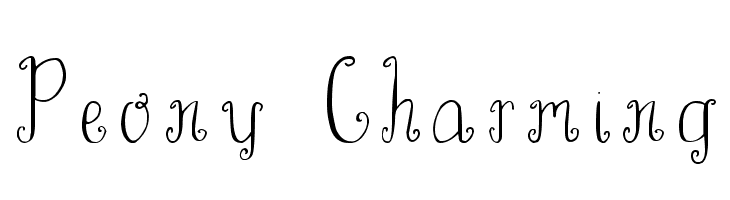
A bold, modern font with a strong, compact design.
A modern outline font with geometric and uniform letterforms.
A playful, hand-drawn font with dynamic strokes and whimsical details.
A graceful, cursive script font with elegant, flowing lines.
A playful, hand-drawn font with rounded edges and a whimsical style.
A scratchy, hand-drawn font with an energetic and edgy style.
A decorative font with characters wrapped in horizontal stripes, offering a playful and whimsical style.
A bold, graffiti-inspired font with sharp, angular lines and high contrast.
A playful, handwritten font with a casual and whimsical style.